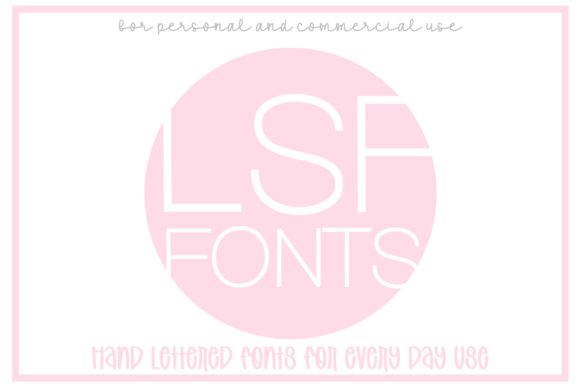
LSF Volume 13 Font
About LSF Volume 13 Font
LSF Volume 13 is an incredibly versatile and neat collection of 5 font styles. It is suitable for creating any branding, product packaging, invitation, quote, t-shirt, label, poster, logo that you wish to develop.